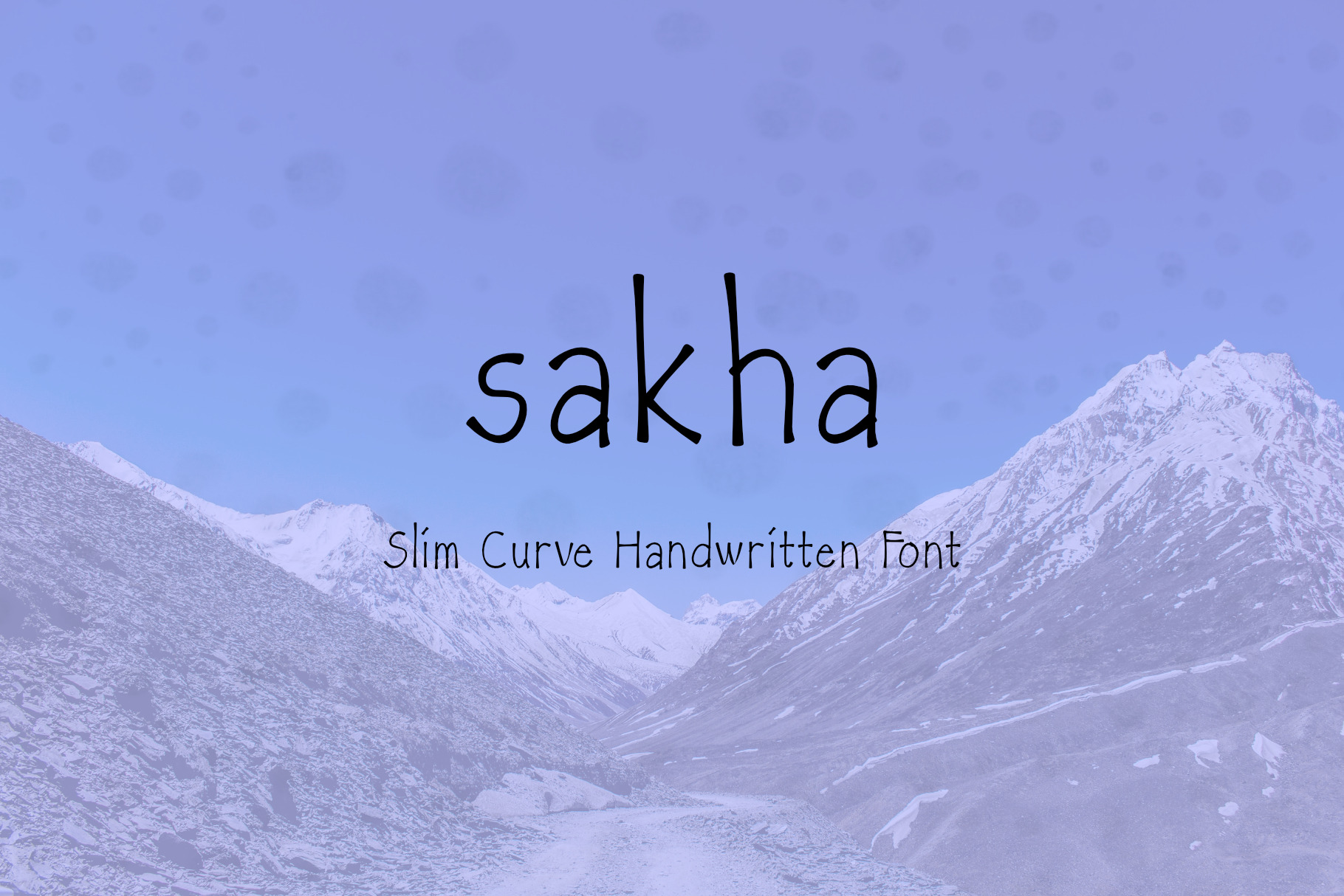
sakha - slim curve handwritten font
SAKHA - A slim curve hand-lettered sans serif font! This font would be perfect for party invitations, birthday cards and more. Its like you just write for everyone. Its really realistic & authentic hand written style.